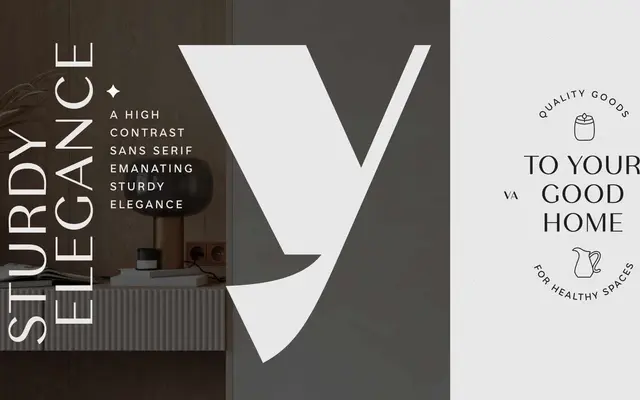
Stornoway
Arcane Type Foundry · Alanna Munro · 2024
A high-contrast sans by Alanna Munro that translates the sturdy elegance of Scotch Roman into a serifless form with flared terminals, true italics and a variable axis controlling both weight and contrast.
Inspired by Scotch Roman faces and Dwiggins' Caledonia, Stornoway strips away the serifs while keeping the pronounced stroke contrast, flared terminals and raised x-height that define that tradition. The family divides into two subfamilies: the standard high-contrast cuts suited to display work and the Low variants with reduced contrast for body text and packaging. Seven weights from ExLight to Chonky run across both subfamilies with matching true italics, and a variable font exposes weight and contrast axes independently, with a reverse-contrast expansion planned.
Stornoway is a serifless sans with dramatically high stroke contrast and flared terminals, drawing formal inspiration from Scotch Roman and Dwiggins' Caledonia while remaining strictly a sans. Its structure sits closer to a display serif tradition rephrased without serifs than to a conventional grotesque or humanist sans.